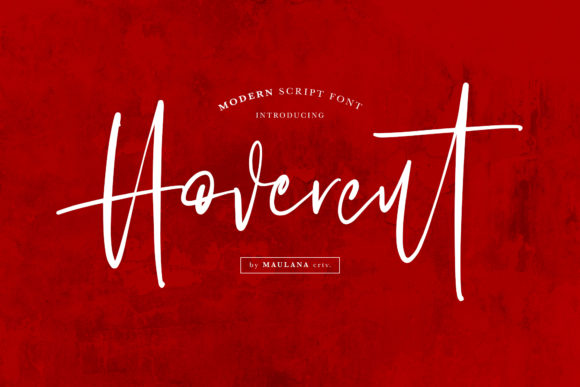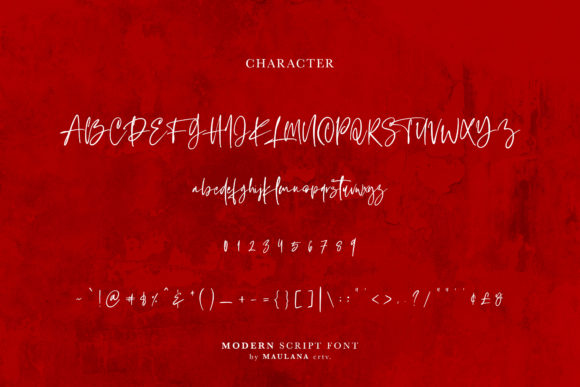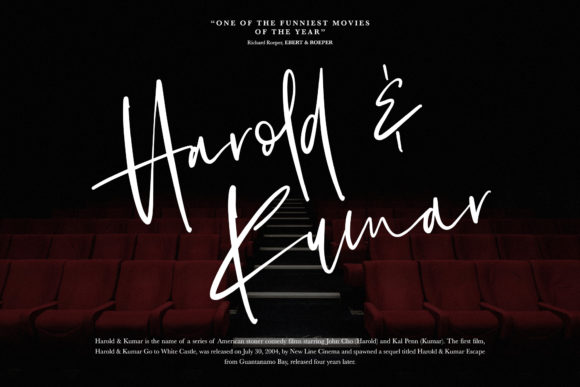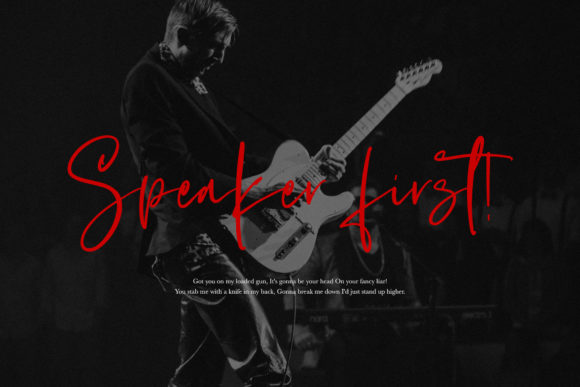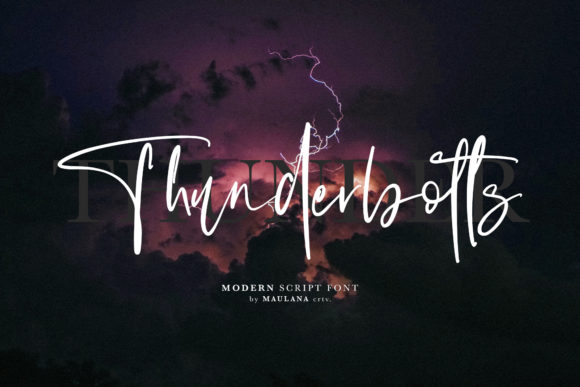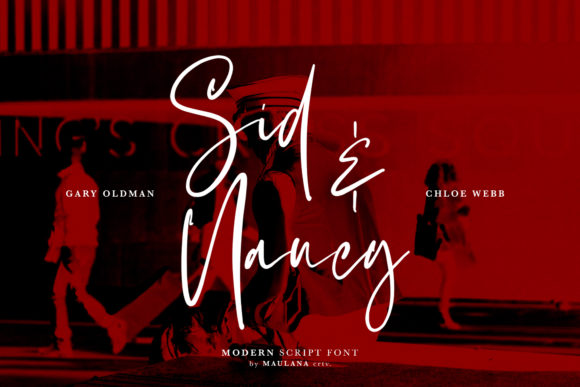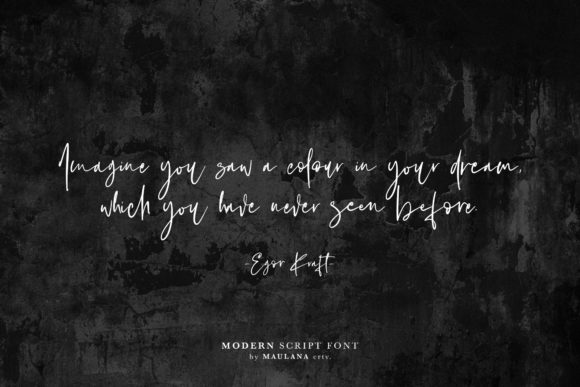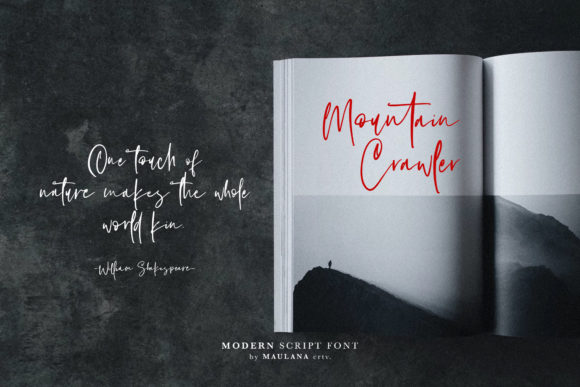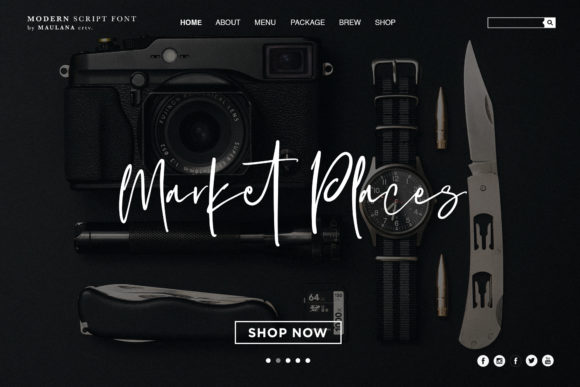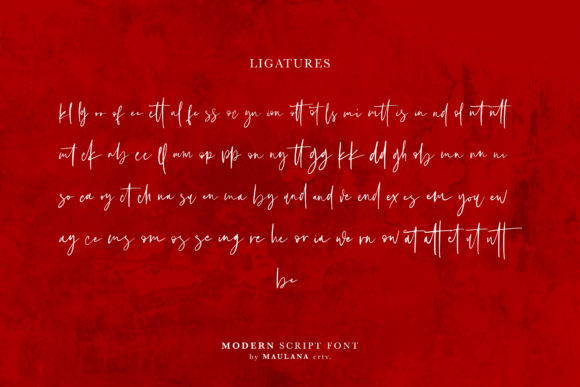
HomeScript FontsHovercut Font Script Fonts Hovercut Font FacebookXPinterestWhatsApp Hovercut Font Poster 2 Hovercut Font Poster 3 Hovercut Font Poster 4 Hovercut Font Poster 5 Hovercut Font Poster 6 Hovercut Font Poster 7 Hovercut Font Poster 8 Hovercut Font Poster 9 Hovercut Font Poster 10 About Hovercut Font Hovercut is a funky and fun script font with unique style. Fall in love with its playful appearance! DOWNLOAD ON CREATIVE FABRICAThis font is sold and delivered by Creative Fabrica. Font Canyon may earn a commission if you buy through this link. People also explored Shaker Forest and Hills Font Roxtowns Font Cat Paw Font Lovely Valentine Font Hazelnut Milk Tea Font Lune Font Chietah Smile Font 303 0 TagsHovercut Font Previous articleAttaya FontNext articleFlaura Font LEAVE A REPLY Cancel reply Comment: Please enter your comment! Name:* Please enter your name here Email:* You have entered an incorrect email address! Please enter your email address here Website: Save my name, email, and website in this browser for the next time I comment. Personal Use Free Stone Cold Personal Use Free Read more about this font Krase Personal Use Free Read more about this font Turpentine Personal Use Free Read more about this font Awkward Personal Use Free Read more about this font BLOG Using Fonts in Digital Marketing: Tips to Strengthen Your Brand Identity In the realm of digital marketing, every visual element plays a crucial role in shaping a brand's identity, and fonts are no exception. The... Best Fonts for YouTube Videos: Make Your Thumbnails Stand Out Top 7 Google Fonts Alternatives for Faster and Privacy-Friendly Web Design (2025) Free Fonts Risk: Why Free Fonts Can Be Dangerous for Designers